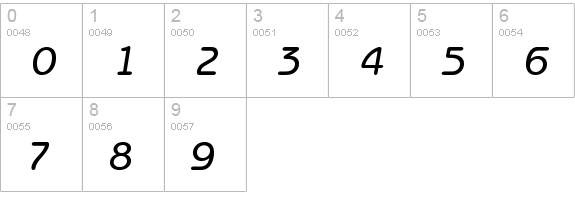
Benguiat Gothic* Medium Italic Font Details
Benguiat Gothic* Medium Italic is a balanced, medium-weight, italic variant in the Benguiat typeface family \xE2\x80\x94 well suited to sub-headlines, navigation, and balanced editorial work.
Benguiat Gothic* Medium Italic is a stylish and versatile font that exudes a sense of modernity and sophistication. Its sleek and slanted design adds a touch of elegance to any project, making it perfect for a wide range of applications, from branding to editorial design. The italicized variant of Benguiat Gothic* Medium adds a dynamic and expressive flair to text, making it stand out while maintaining a sense of refinement. Best of all, Benguiat Gothic* Medium Italic is available for free download at FontsMarket.com, allowing designers and creatives to easily access this high-quality font for their projects. With its clean lines and unique personality, Benguiat Gothic* Medium Italic is sure to make a statement and elevate any design with its distinctive charm.